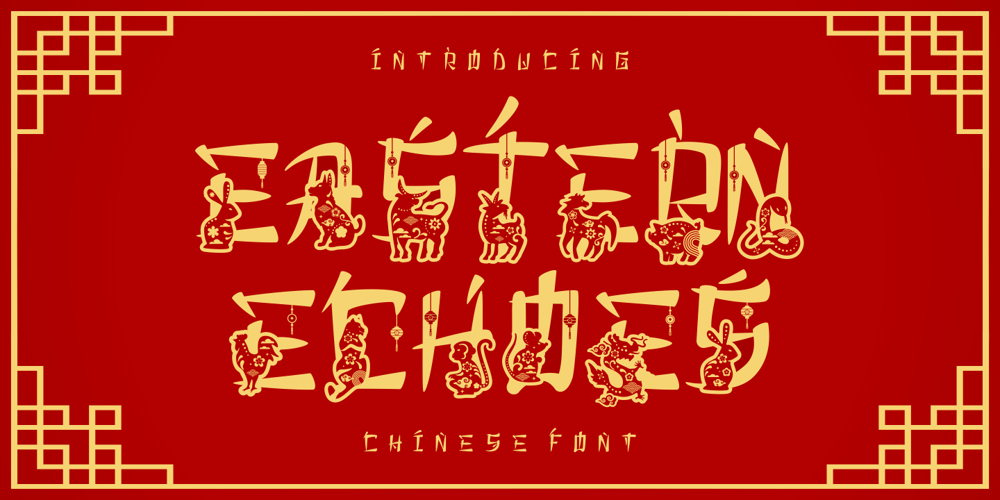
Eastern Echoes
Eastern Echoes font
Eastern Echoes Font Family was designed by Putra Novembria Candra Kusuma and published by Putracetol. Eastern Echoes contains 13 styles and family package options. Eastern Echoes – Chinese Display Font is a whimsical and playful typeface inspired by the enchanting world of Chinese culture. Each character is meticulously crafted to resemble hand-brushed strokes, embodying the artistic elegance reminiscent of traditional Chinese calligraphy. The font encapsulates the quirky essence of children’s illustrations, making it a perfect blend of classic and contemporary design elements.The uniqueness of Eastern Echoes lies in its versatile characters adorned with intricate designs of zodiac animals, bringing an element of fun and creativity to every use case. It’s not just a font but an artistic toolkit that offers a myriad of combinations for brand identities, packaging, invitations, and more. Every stroke is infused with a sense of craftiness ideal for projects that aim to convey warmth, playfulness, and cultural richness.